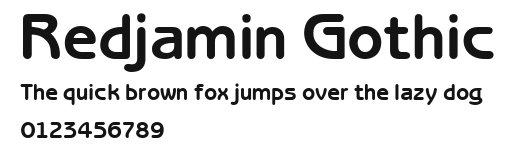
Redjamin Gothic.ttf is a modern, elegant sans-serif font designed for ultimate readability and visual harmony. Perfect for branding, headlines, web design, and print materials.